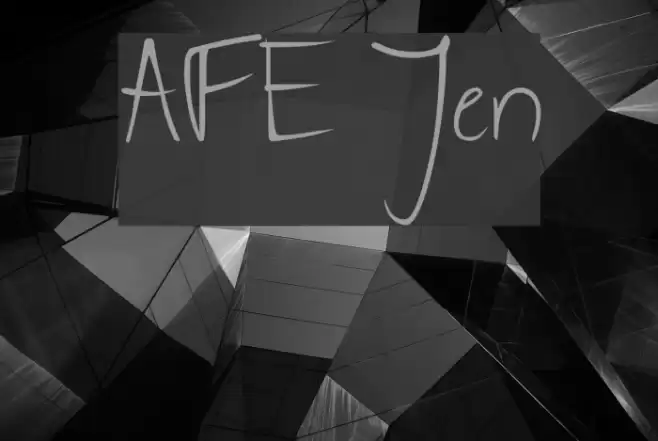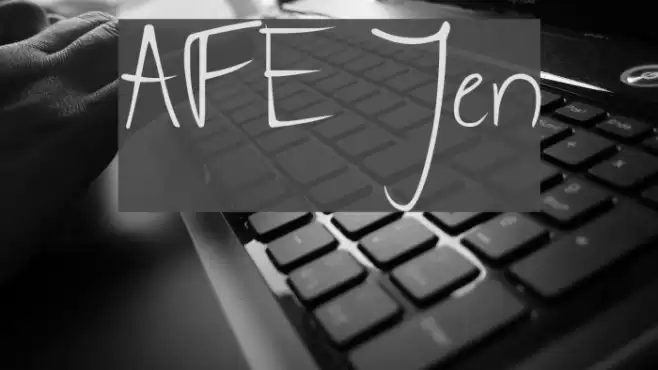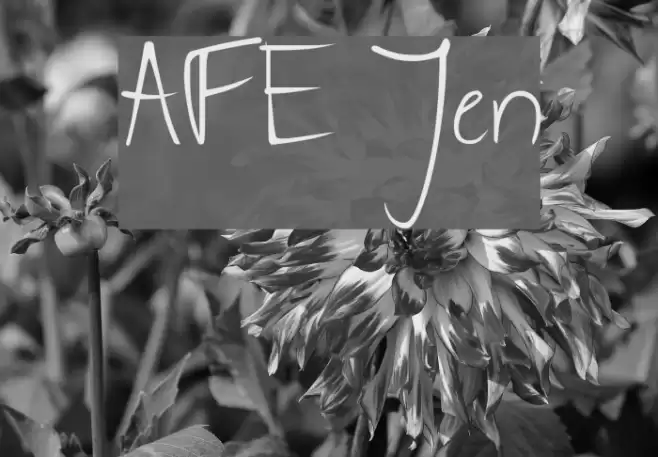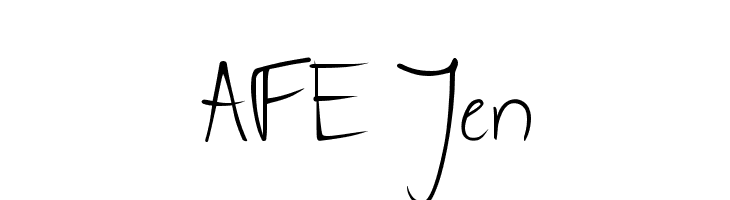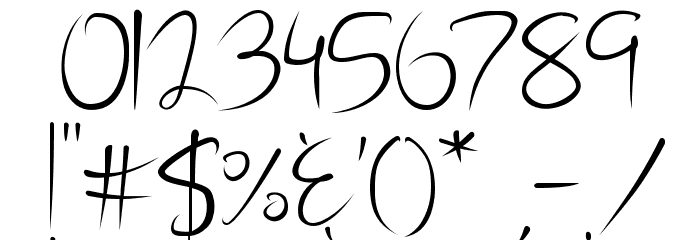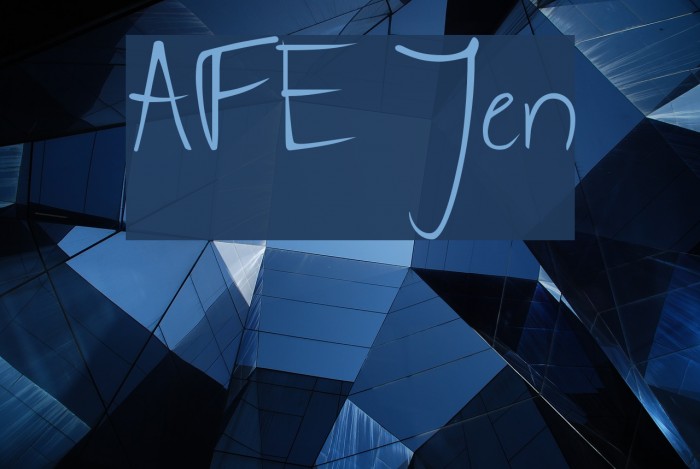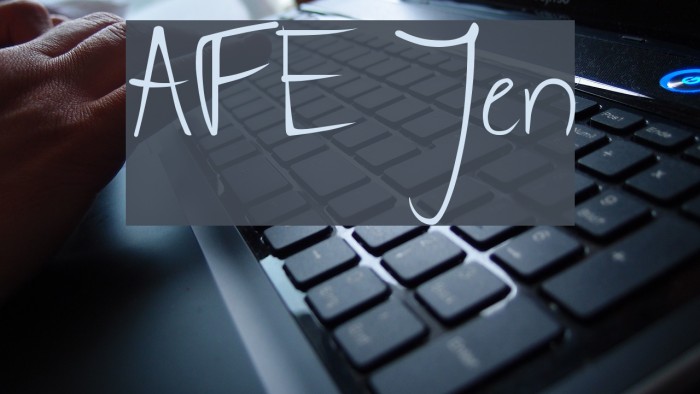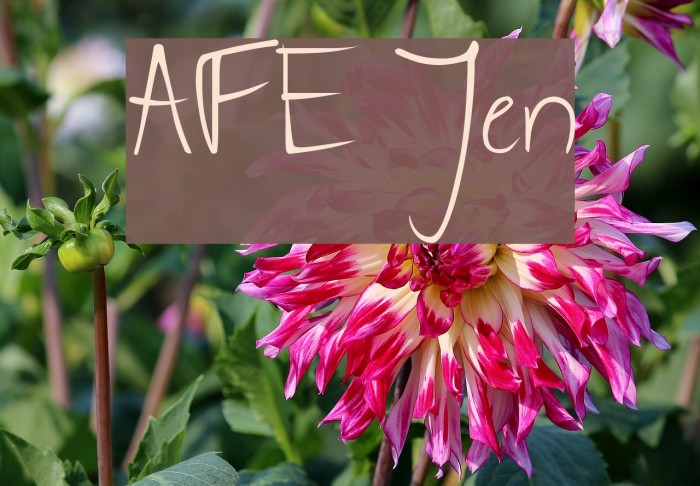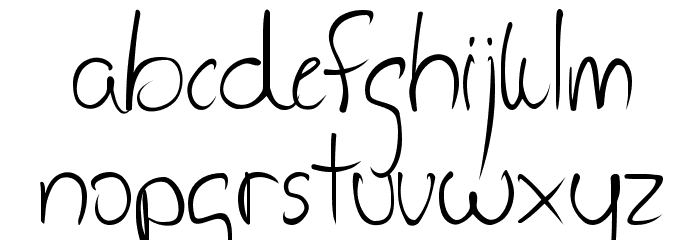
AFE Jen Font
AFE Jen Description
This font features a playful and dynamic handwritten style, characterized by its fluid and irregular strokes. The letters are slightly slanted, giving a sense of movement and energy. The uppercase letters are tall and slender, while the lowercase letters maintain a consistent flow with a mix of rounded and angular forms. The numbers and special characters follow the same lively aesthetic, making the font suitable for creative and informal designs. The overall appearance is casual yet artistic, perfect for adding a personal touch to any project.
A playful handwritten font with fluid, dynamic strokes from Handwritten fonts.
- Proposed Projects: Ideal for greeting cards, invitations, personal branding, and creative posters.
- Overall Style: Casual, Artistic
- Use Case: Logos, Invitations, Creative Projects